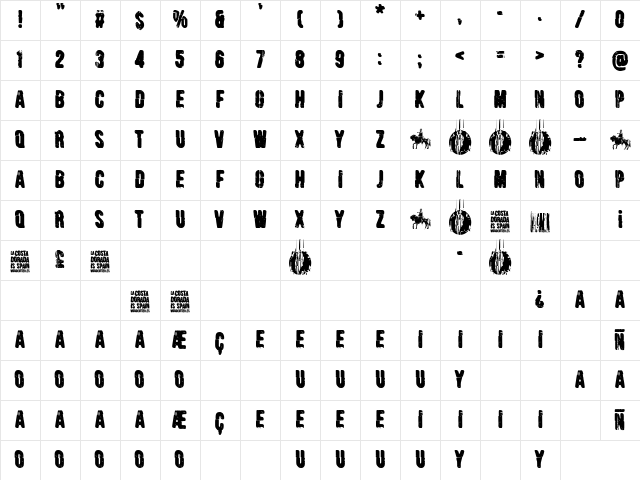
La Costa Dorada is Spain Regular Free Font
La Costa Dorada is Spain Regular
Designer: Woodcutter Manero
Design Context for La Costa Dorada is Spain
La Costa Dorada is Spain is a composed and adaptable typeface that performs quietly and consistently across a wide range of design contexts.